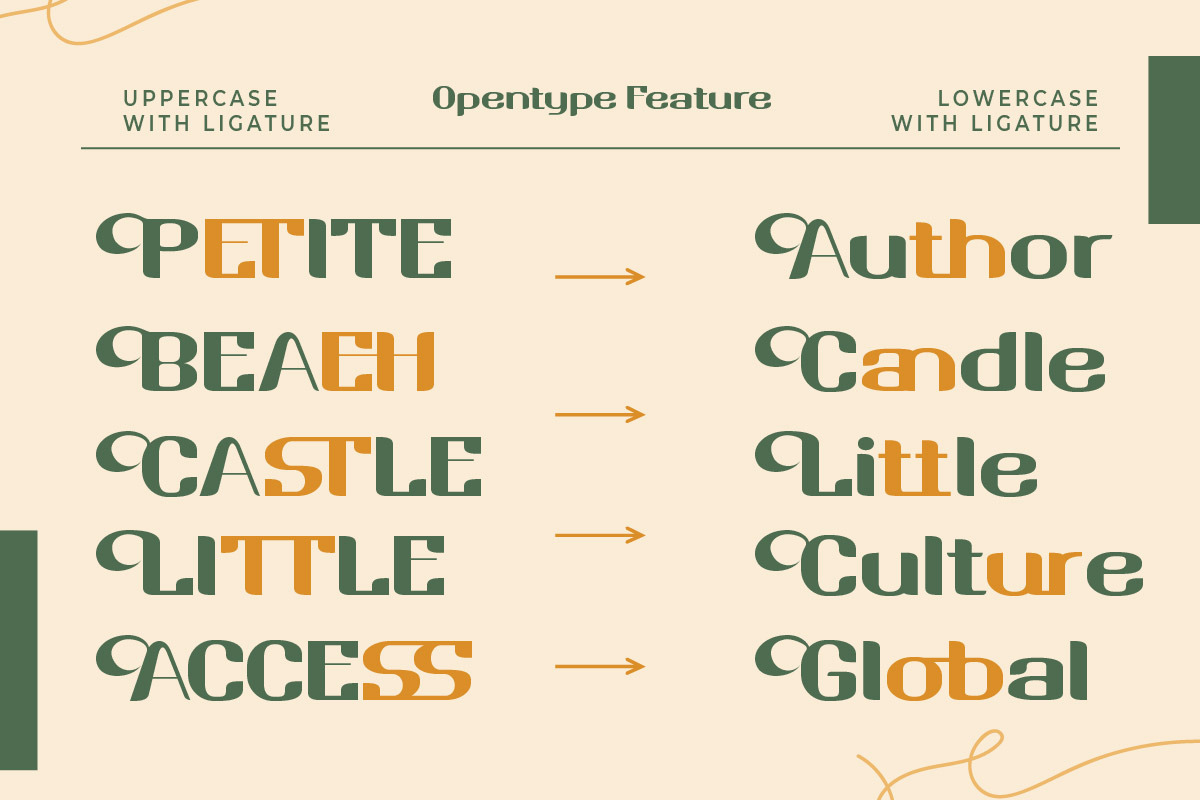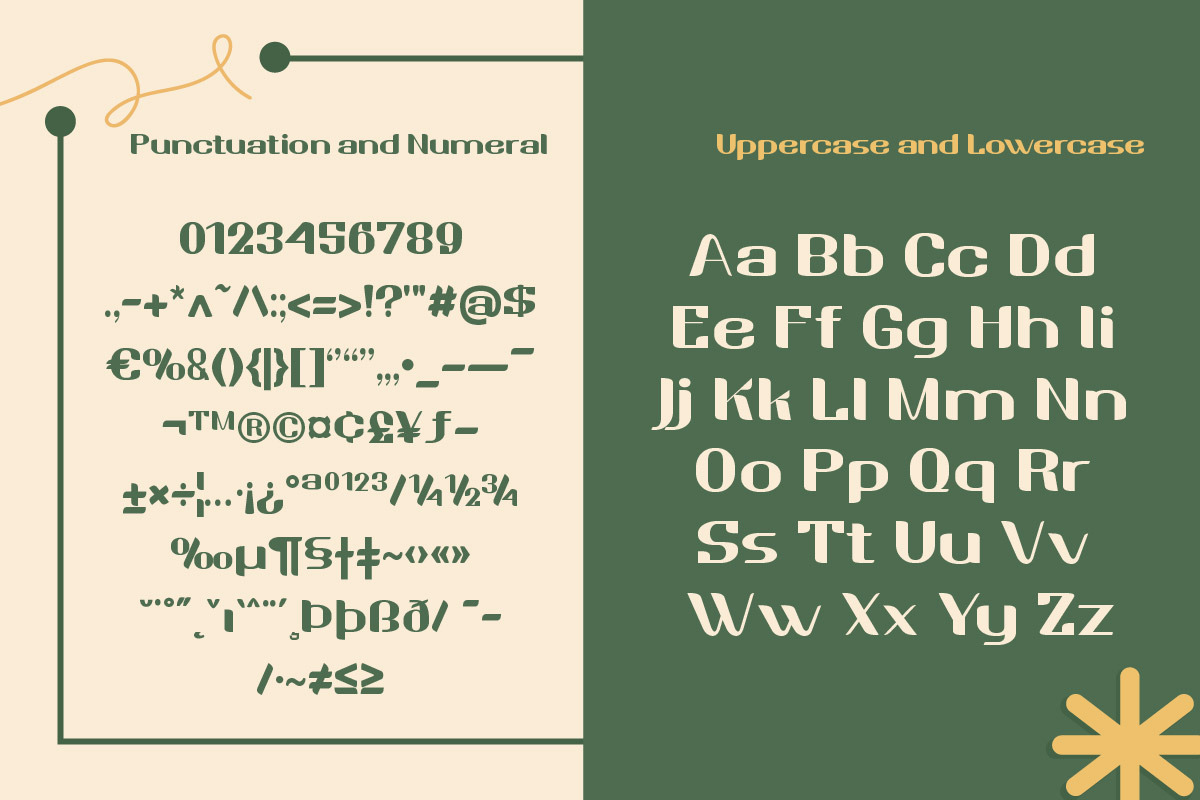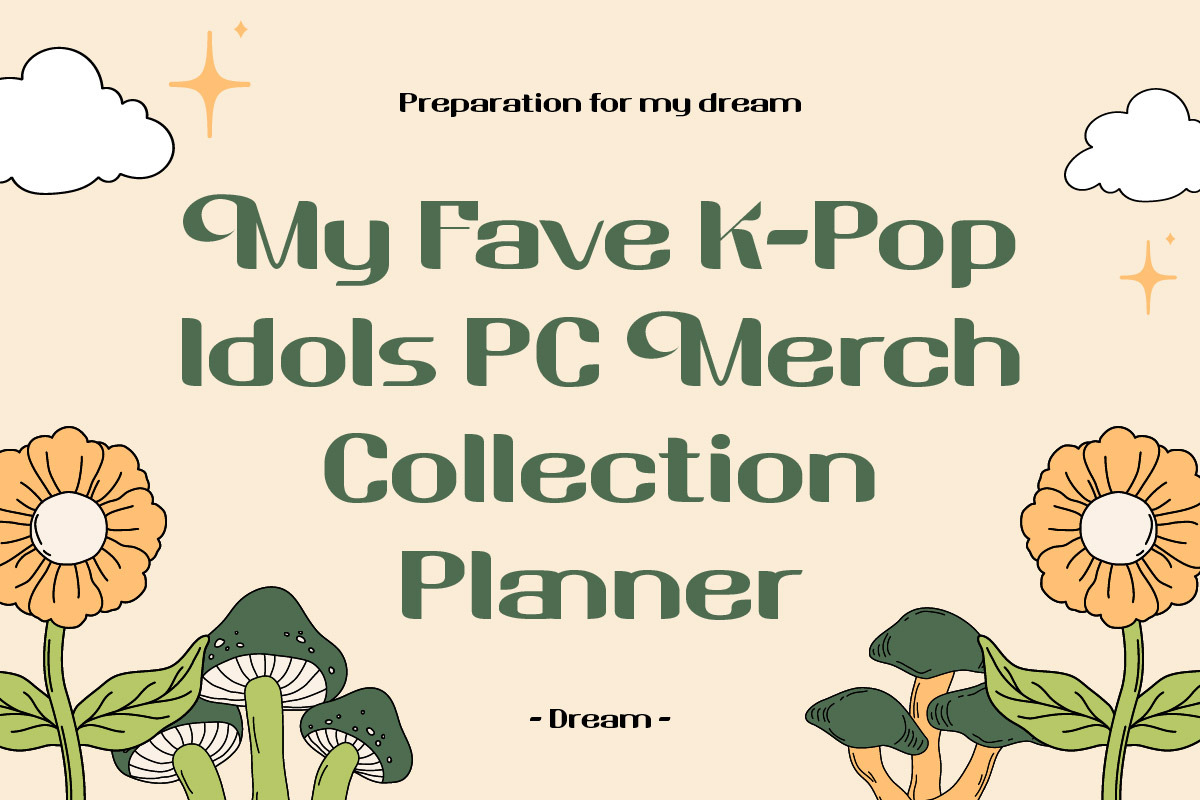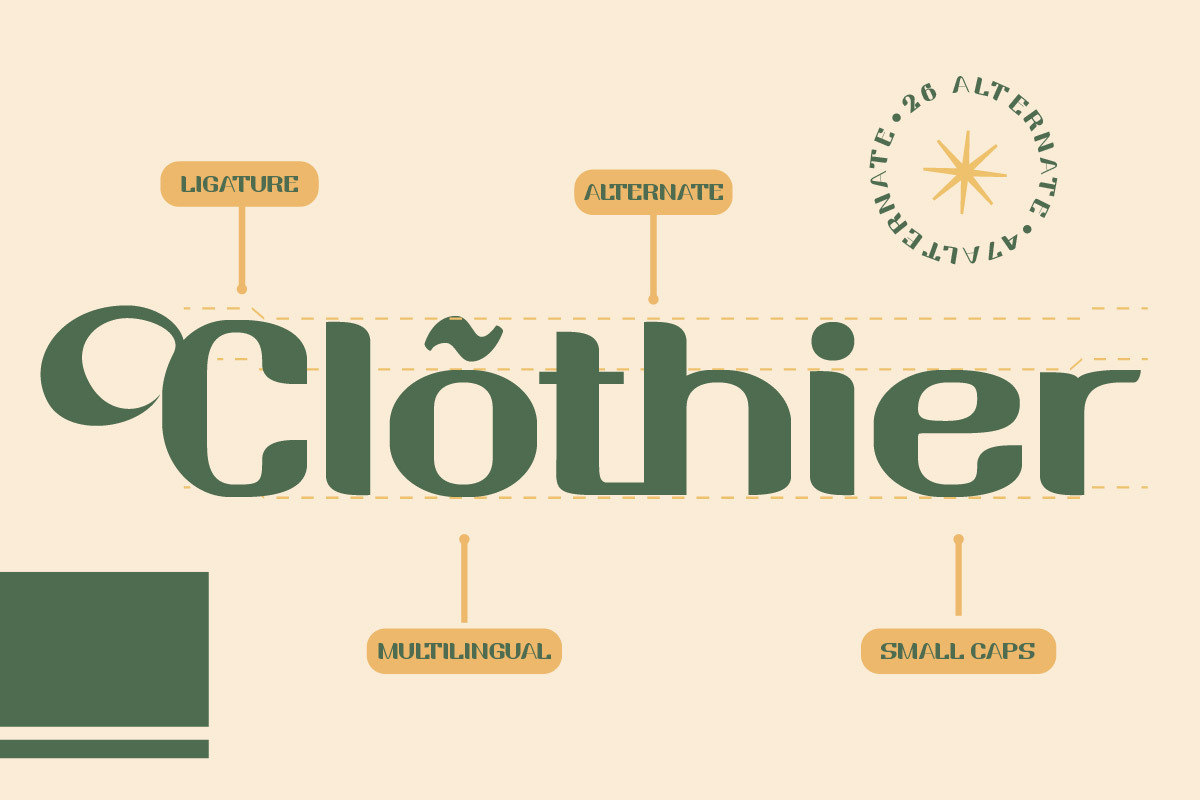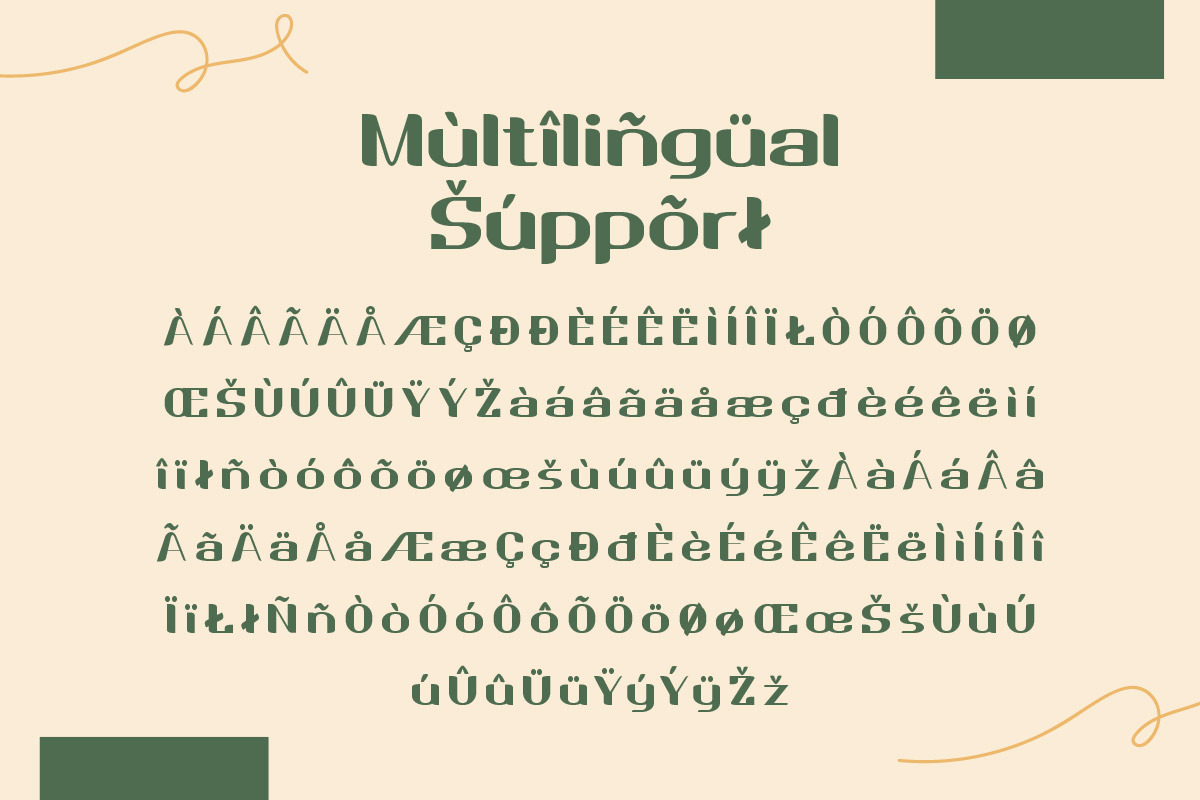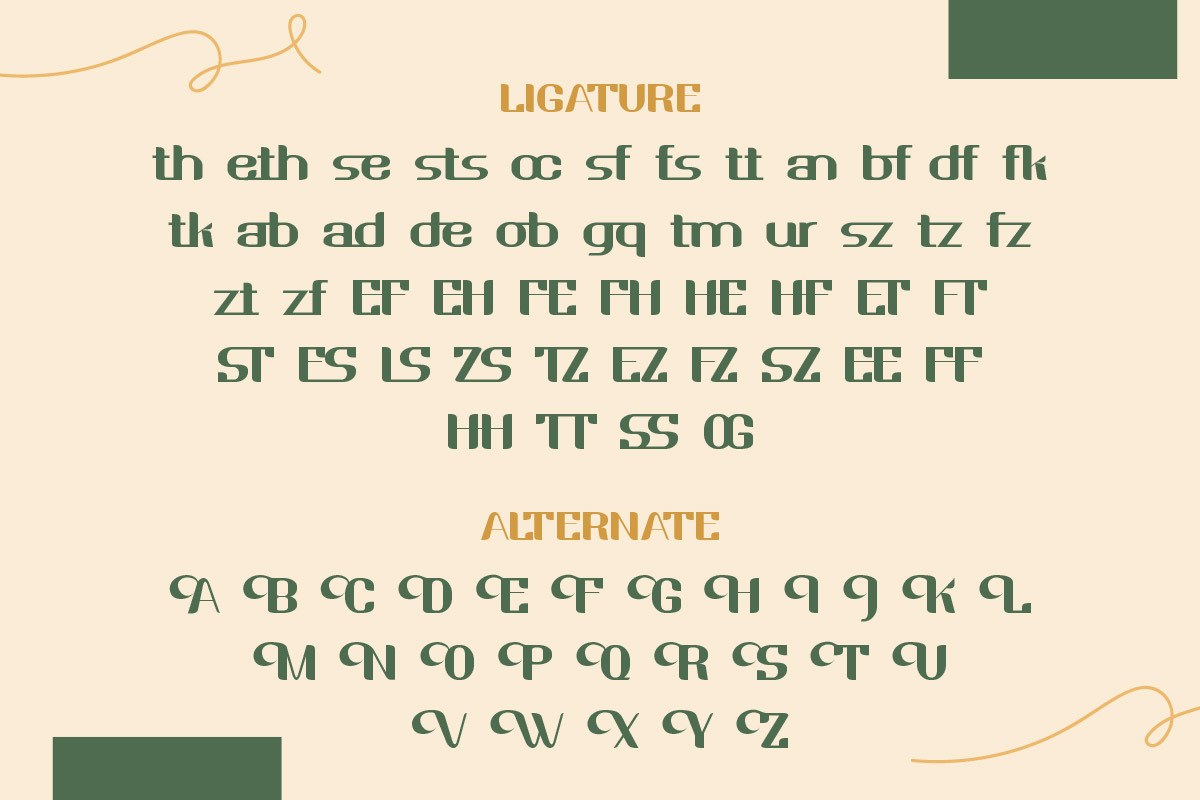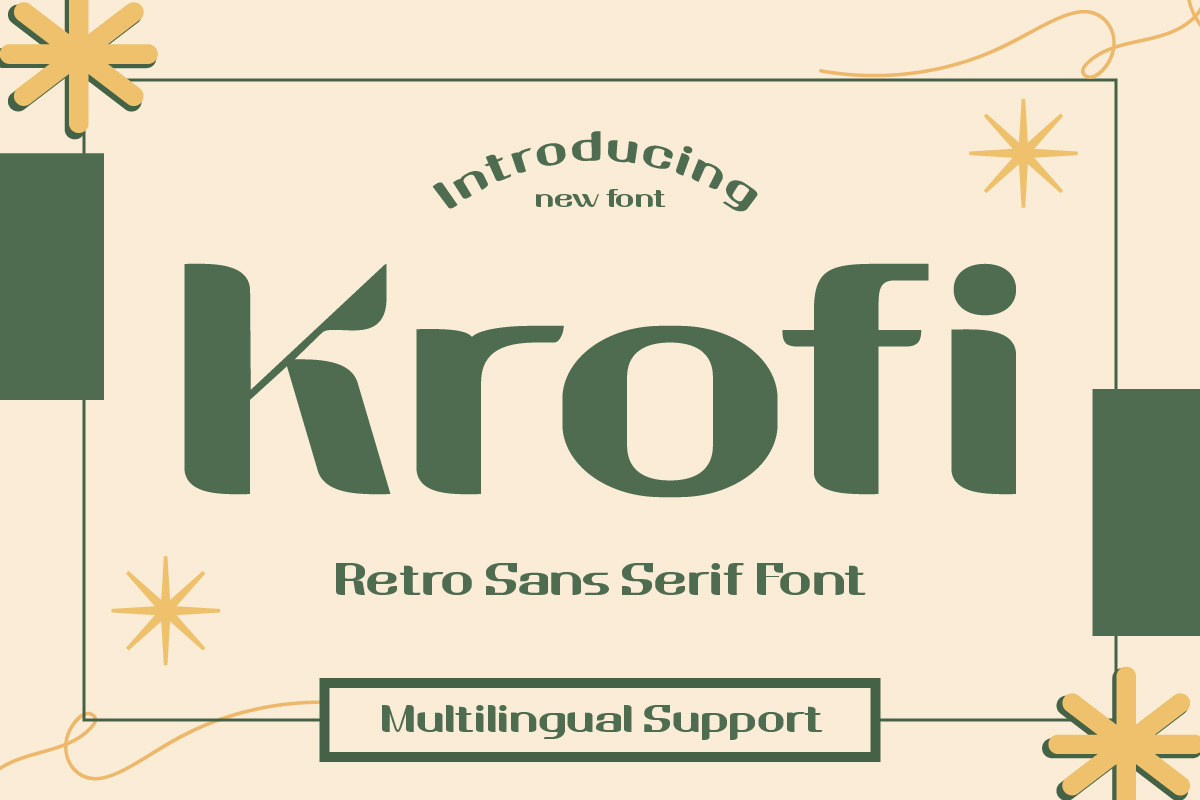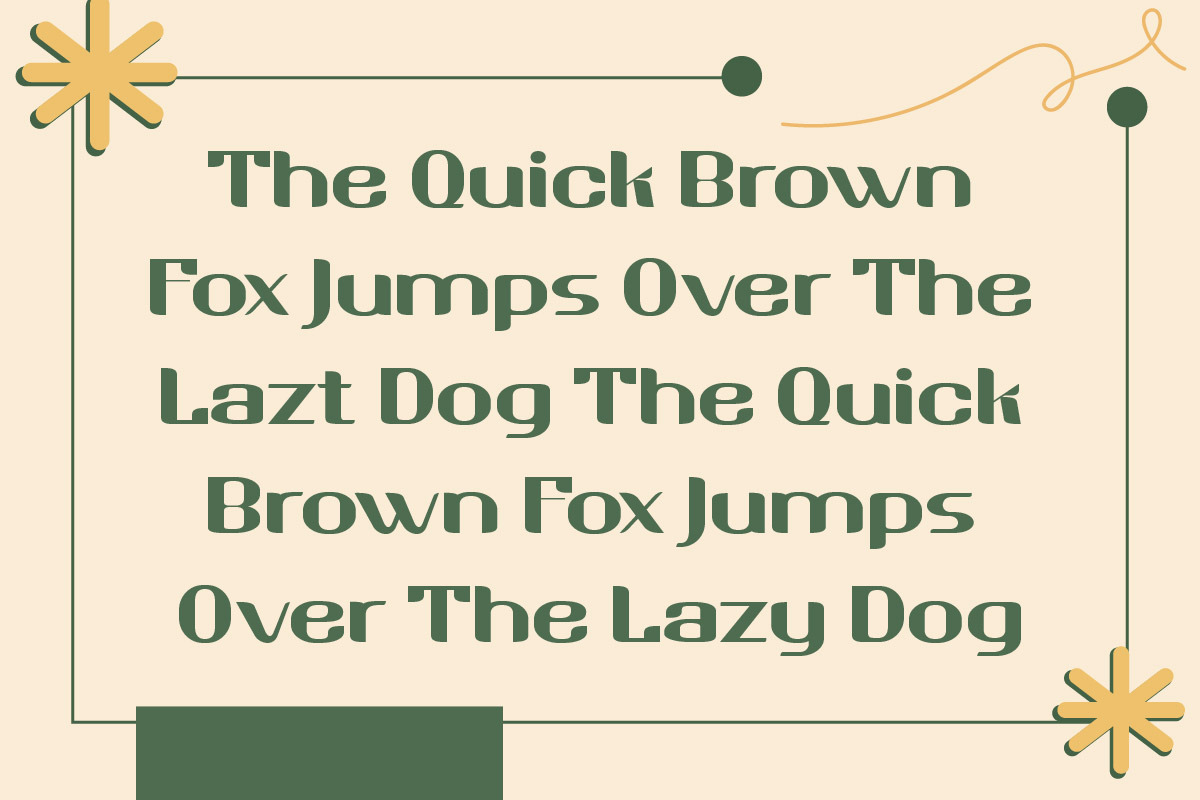
Krofi - Retro Display Font
Krofi is a font that takes you on a trip down memory lane. This retro display font brings a touch of nostalgia to your designs, creating a sense of familiarity that is both comforting and effective. Its unique, vintage-inspired characters are perfect for creating eye-catching headlines and logos that resonate with your audience. With Krofi, your designs will create a sense of nostalgia that your audience will love. What’s Included:
- Fonts include Multilingual: Support for 85 languages. Afrikaans, Albanian, Asu, Basque, Bemba, Bena, Breton, Catalan, Chiga, Cornish, Croatian, Czech, Danish, Dutch, Embu, English, Esperanto, Estonian, Filipino, Finnish, French, Friulian, Galician, Gusii, Hungarian, Indonesian, Irish, Italian, Kabuverdianu, Kalenjin, Kamba, Kikuyu, Kinyarwanda, Latvian, Lithuanian, Lower, Sorbian, Luo, Luxembourgish, Luyia, Machame, Makhuwa-Meetto, Makonde, Malagasy, Maltese, Manx, Meru, Morisyen, North, Ndebele, Norwegian Bokmål, Norwegian Nynorsk, Nyankole, Oromo, Polish, Portuguese, Quechua, Romanian, Romansh, Rombo, Rundi, Rwa, Samburu, Sango, Sangu, Scottish, Gaelic, Sena, Serbian, Shambala, Shona, Slovak, Slovenian, Soga, Somali, Spanish, Swahili, Swedish, Swiss German, Taita, Teso, Turkish, Upper Sorbian, Uzbek (Latin), Volapük, Vunjo, Walser, Zulu.